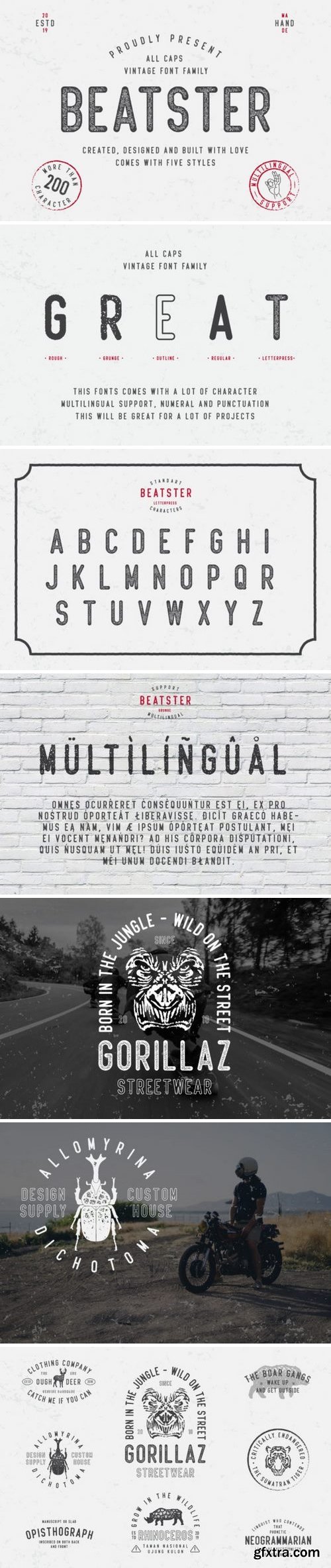
The Beatster is a handmade display typeface. It has a textured vintage feel which makes it perfect for giving your designs an unique look. Included as a bonus is a editable badge template.